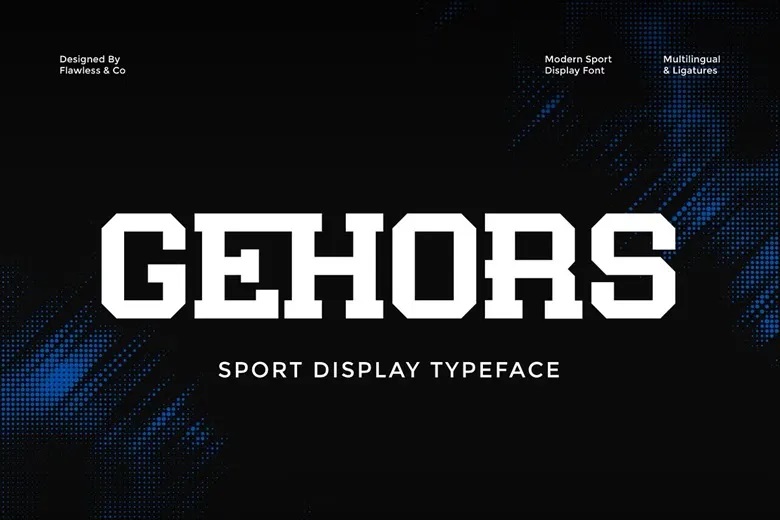
Gehors Font
Gehors is a modern sports display font that shows off strength, speed, precision, and a competitive edge. With sharp angles, bold shapes, and tight spacing, it gives a strong sense of motion and energy. Its sporty style stands out in headlines while staying clear and impactful.
If you’re working on designs for teams, events, or sports brands, Gehors offers a clean, bold look inspired by performance and energy.
Gehors Display Font